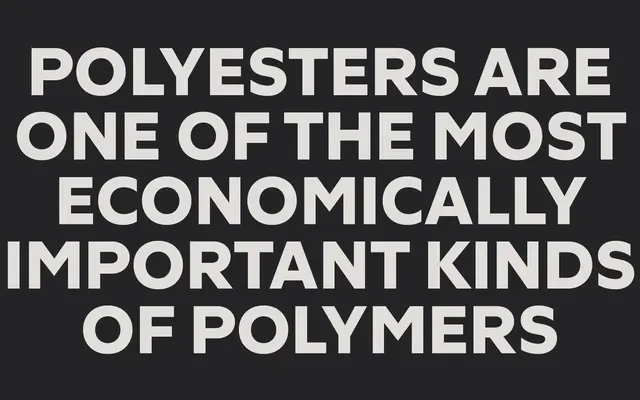
A humanist sans drawing on British grotesque traditions, particularly Granby, with wide proportions, open apertures and tapered arch joints.
Goalking sits between humanist and geometric sans genres, taking cues from Stephenson Blake's Granby rather than Johnston's Underground in its open apertures and contrasted joints. Contemporary wide proportions, a generous x-height and spiky vertical terminals distinguish it from classical or handwriting-influenced humanist designs. The family covers eight weights from Thin to Black with matching italics, plus a variable font, making it a practical choice for modern editorial and branding work.
Goalking blends humanist and geometric traits, with open apertures, tapered arch joints and rounded dots placing it closer to British humanist sans traditions such as Granby than to geometric or neo-grotesque models.